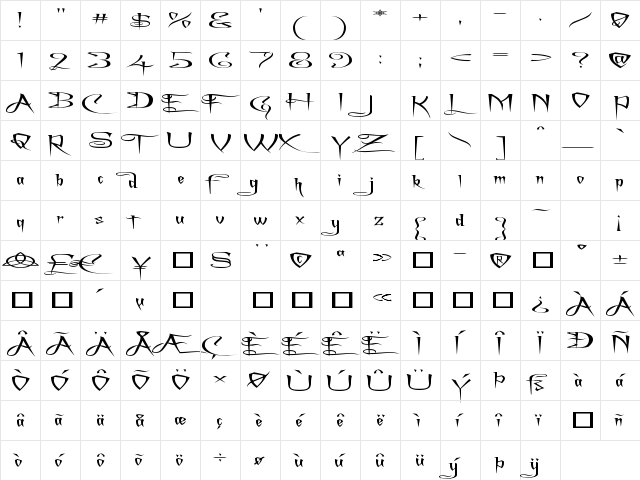
A Charming Font Superexpanded Regular
Design Context for A Charming Font Superexpanded Typeface
A Charming Font Superexpanded is a composed and adaptable typeface that performs quietly and consistently across a wide range of design contexts.